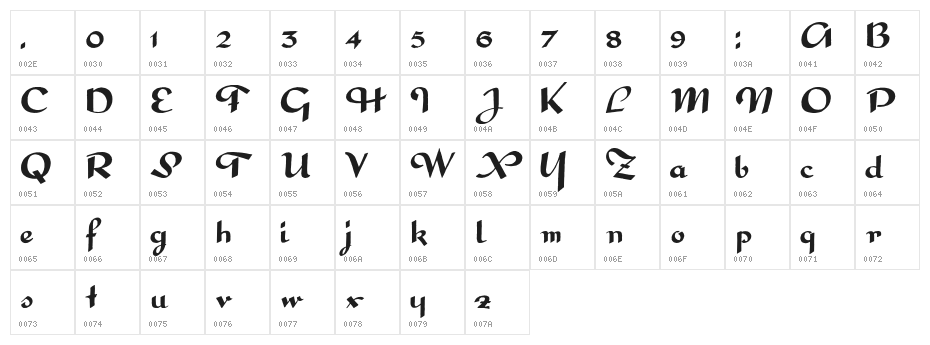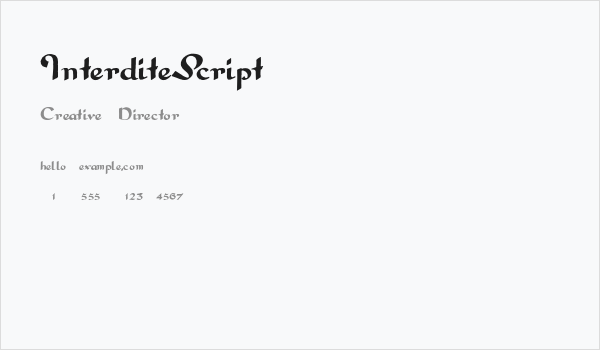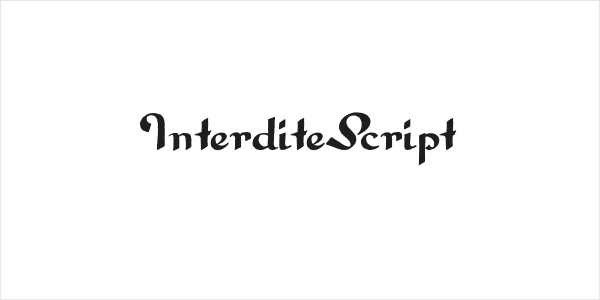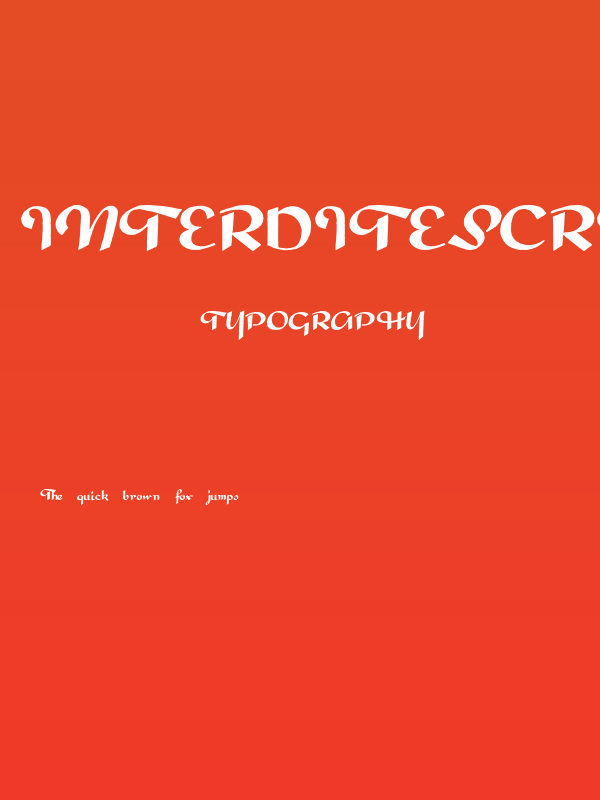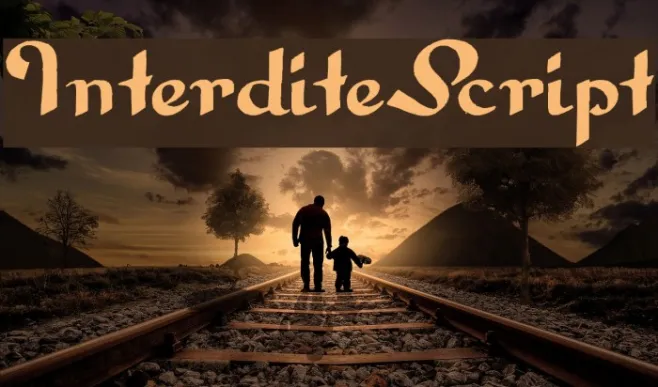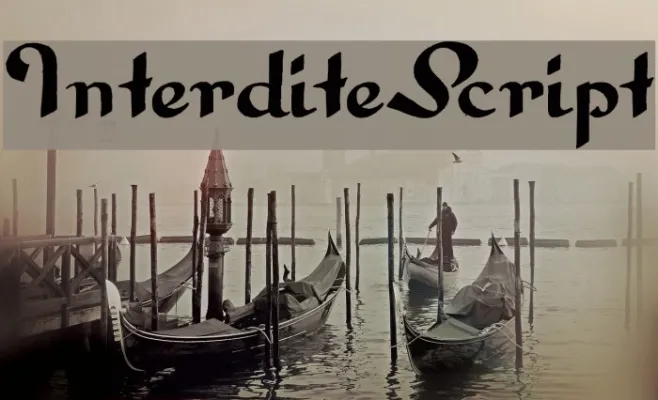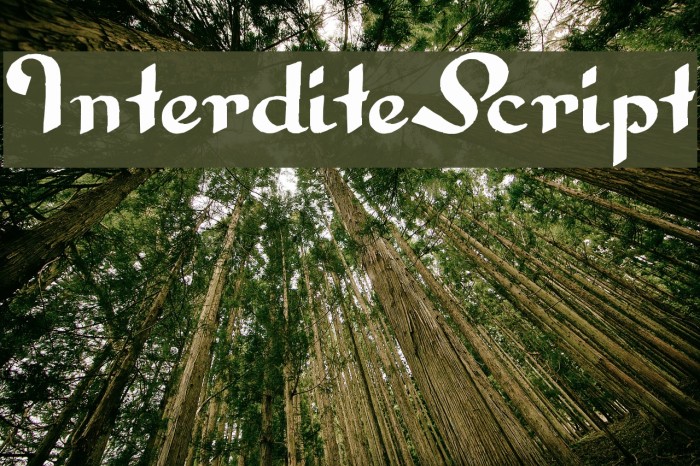
InterditeScript Font
InterditeScript Description
This font features a bold and dynamic script style with a calligraphic influence. The uppercase letters exhibit a strong presence with sharp, angular strokes and a slight slant, giving them an energetic and assertive appearance. The lowercase letters maintain a consistent flow, with some characters featuring unique, decorative elements that add to the font's overall charm. The numerals are bold and clear, matching the style of the letters, and the special characters are designed with the same attention to detail, ensuring a cohesive look across all glyphs.